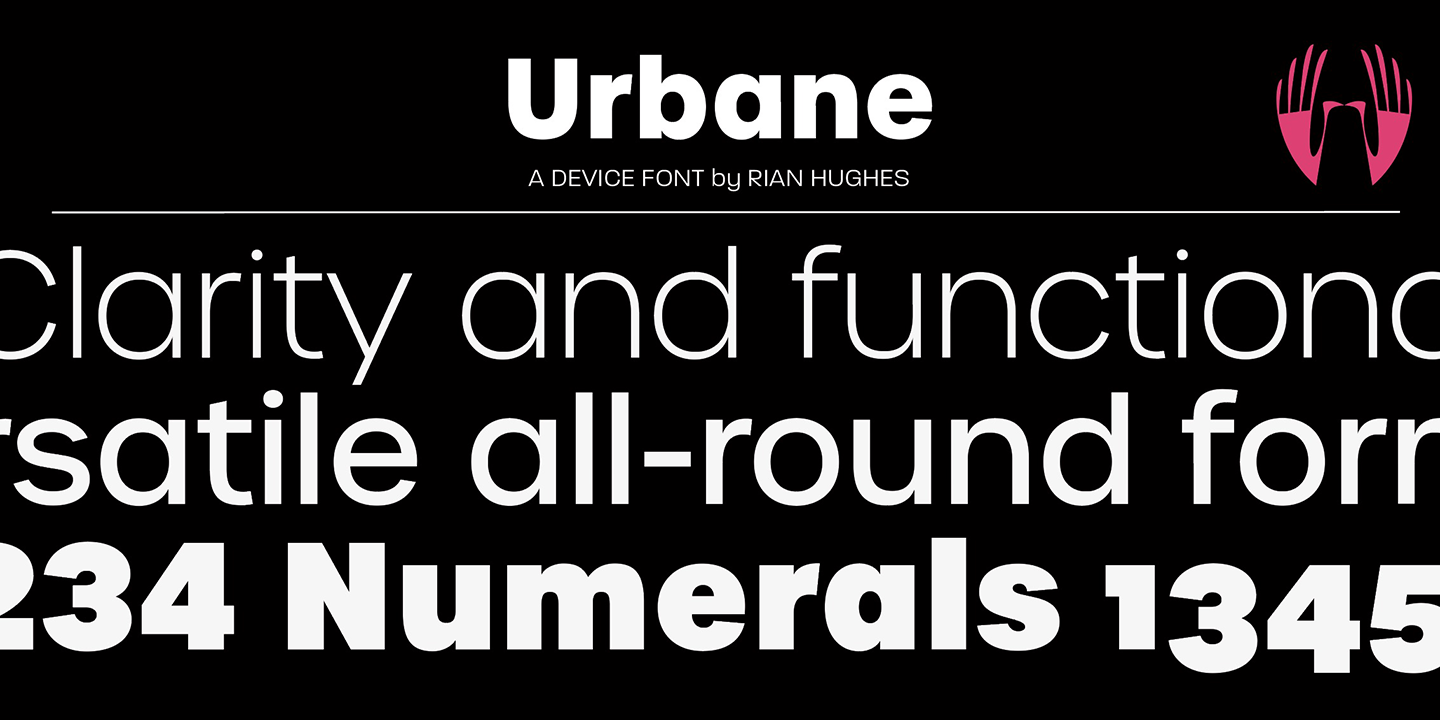
Urbane Font is perfect for metropolitan projects including city planning presentations, urban development materials, architectural firm branding, metropolitan lifestyle magazines, sophisticated real estate marketing, cosmopolitan restaurant signage, modern transit system graphics, and contemporary municipal communications. This refined typeface brings metropolitan sophistication and urban elegance to any design project.
What makes Urbane Font exciting is its sophisticated capture of modern city life through sleek letterforms that embody the energy and refinement of metropolitan culture. The polished character design features contemporary proportions and urban styling that reflect the dynamic pace of city living while maintaining excellent readability across diverse urban environments. This font delivers the perfect balance of cosmopolitan flair and practical functionality that modern urban brands require.
The Urbane Font family typically includes multiple weights from light to bold with metropolitan styling, complete uppercase and lowercase alphabets, numerals, punctuation, and urban symbols. The design incorporates contemporary characteristics and sophisticated elements that enhance the cosmopolitan aesthetic. Premium versions may include stylistic alternates, architectural symbols, and additional metropolitan characters perfect for urban planning and development applications.
Whether you're designing for city governments, urban development firms, or metropolitan lifestyle brands, Urbane Font Free Download delivers the sophisticated urbanity that establishes credibility in competitive city markets. Its cosmopolitan presence makes it ideal for prestigious projects and communications that need to convey metropolitan sophistication and urban expertise. The font's city heritage ensures it communicates progress and refinement, making it perfect for any project requiring the distinguished aesthetic of urban excellence and metropolitan sophistication.